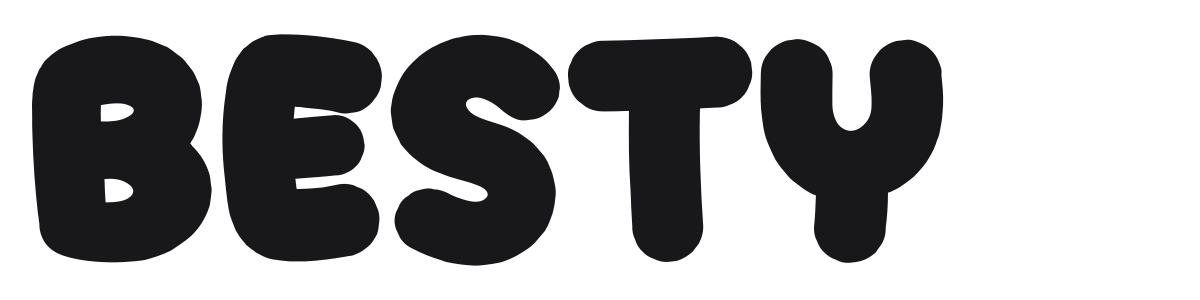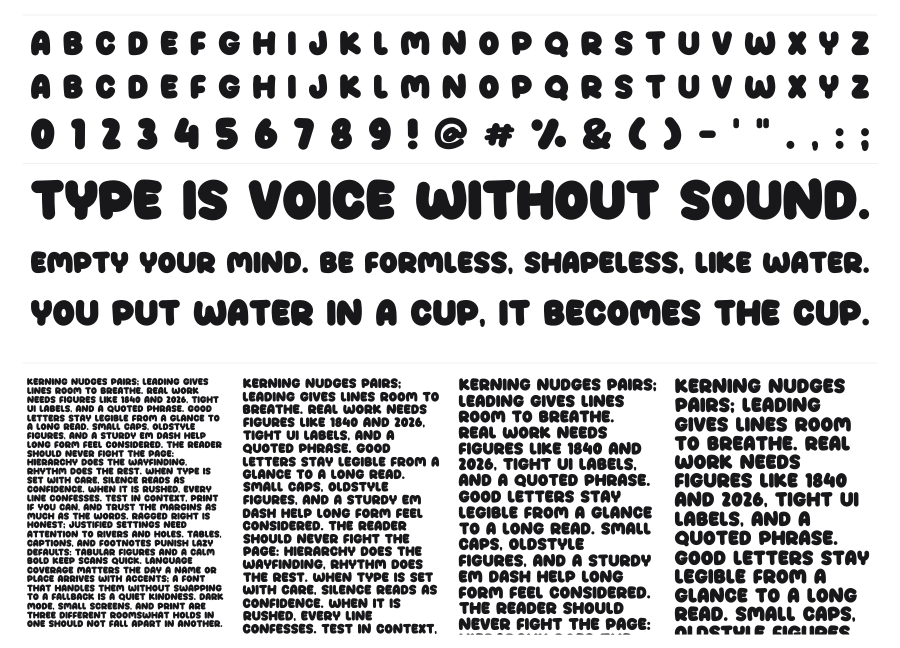
Besty
Besty is a heavy, bubbly rounded sans with thick balloon-like strokes and fully rounded terminals throughout. The inflated construction gives it an irresistibly cheerful, cartoon-like energy that works well in children's content, casual branding, and food packaging. It's unabashedly bold and knows exactly what it wants to be.